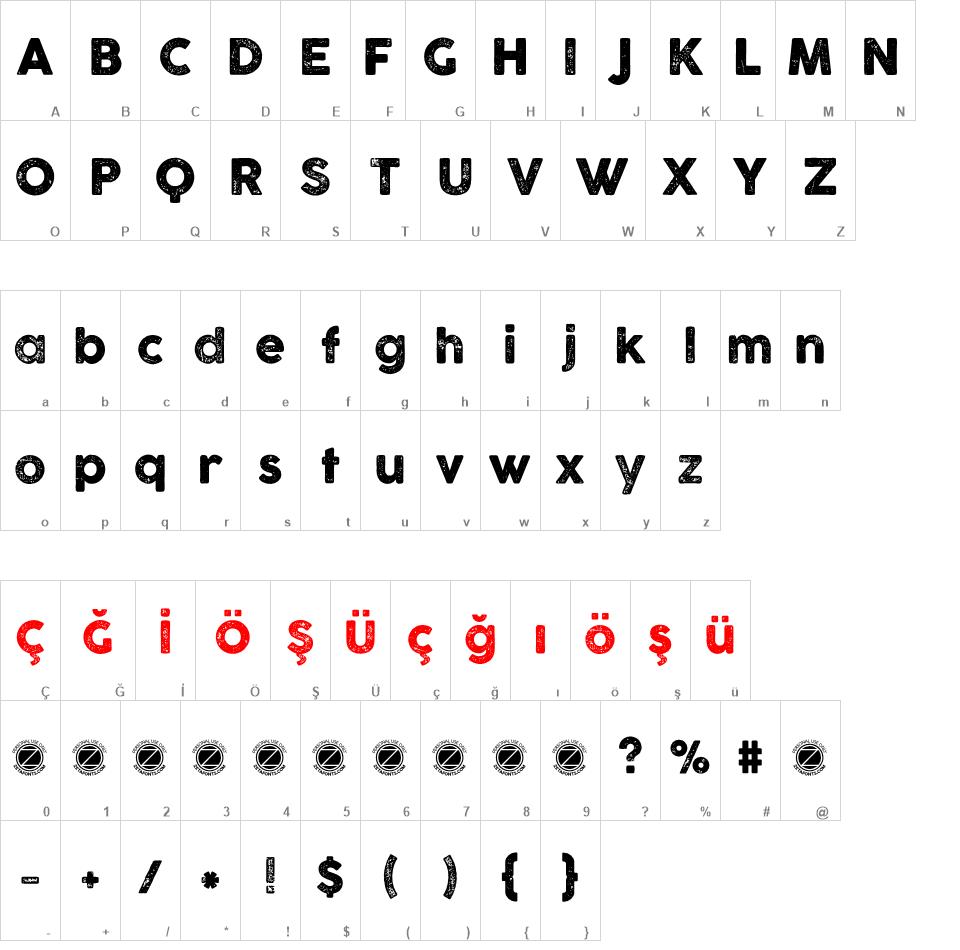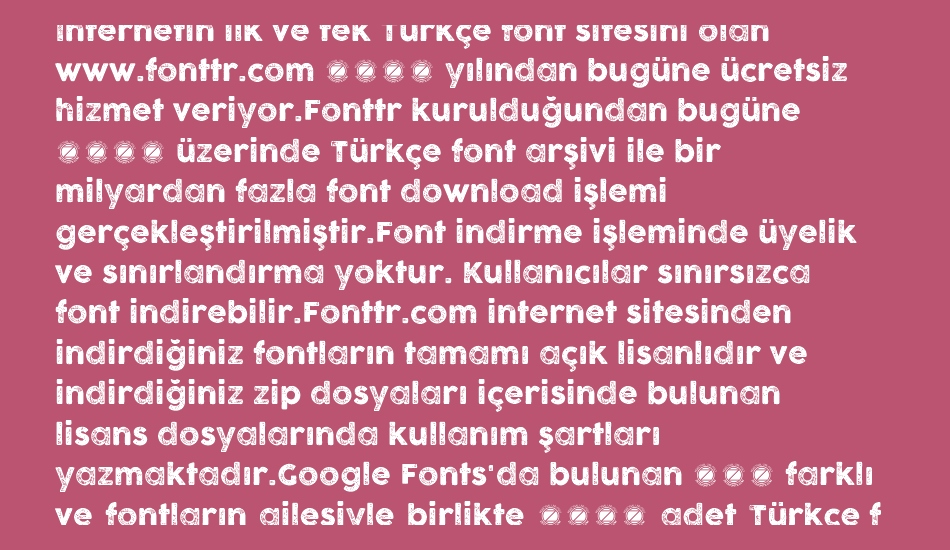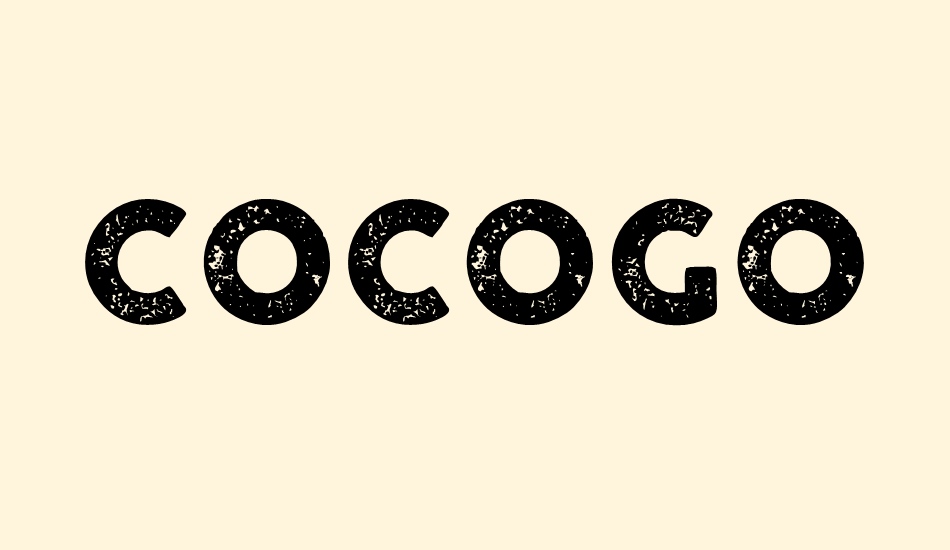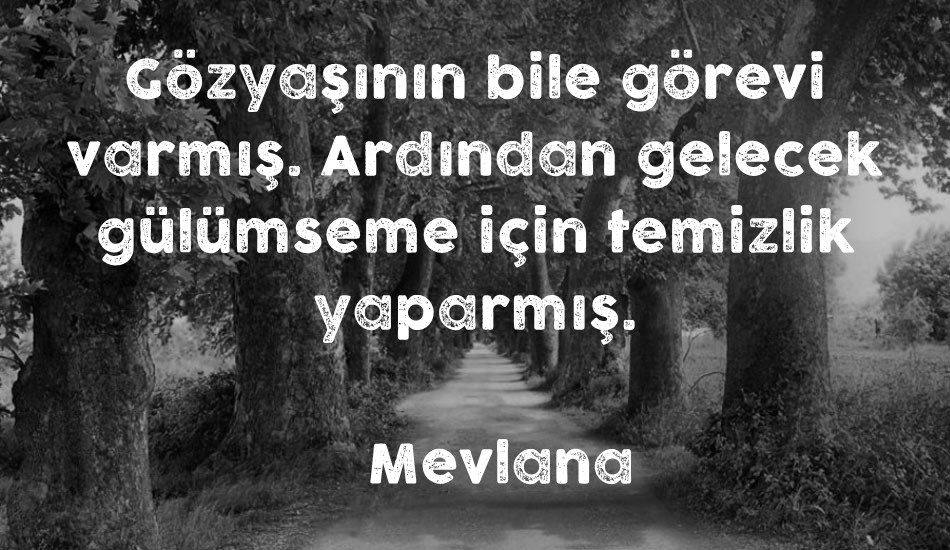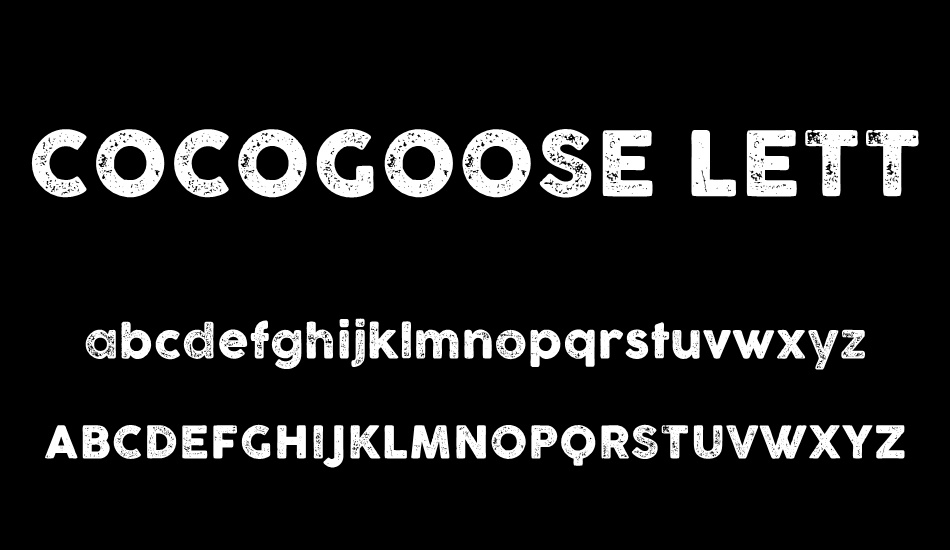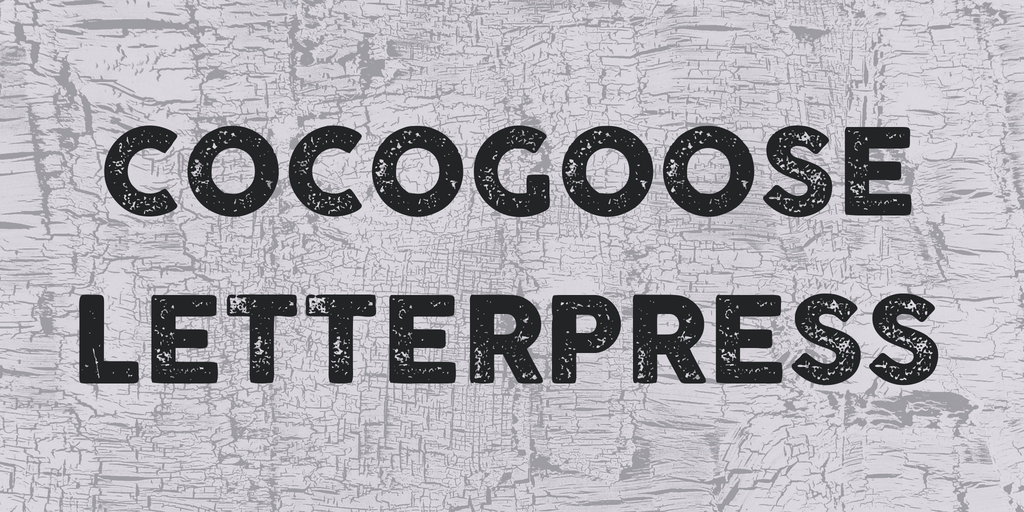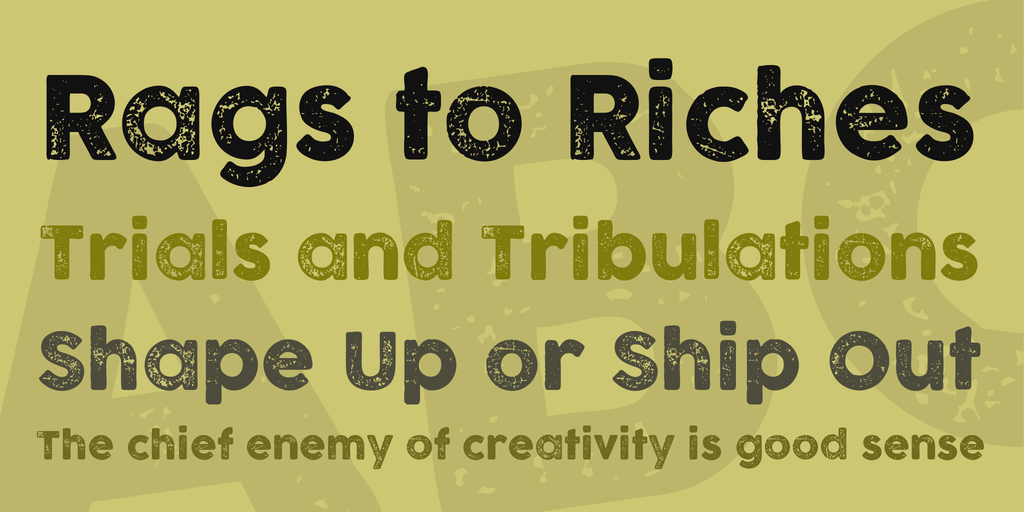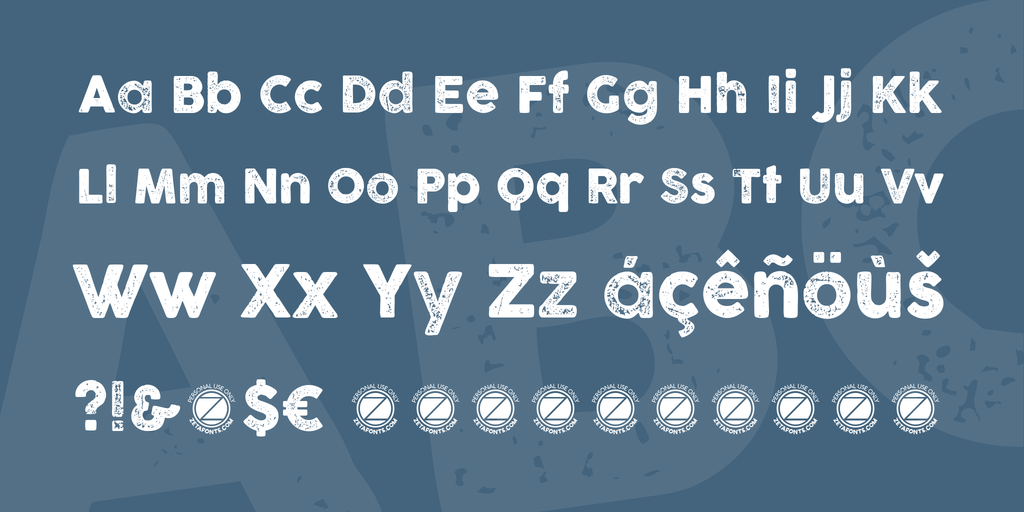
COCOGOOSE LETTERPRESS font
Cocogoose Letterpress is a variant of our CocoGoose Typeface, that uses opentype substitutions randomly choose each letter between four variants, for a real letterpress look without digital - looking repeating letters.
Cocogoose Letterpress is part of the Coco Gothic superfamily: